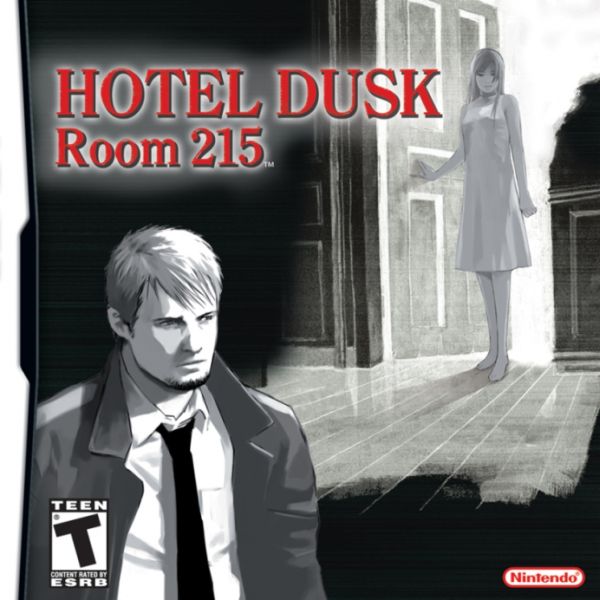
Hotel Dusk: Room 215 Font
ActionHotel Dusk: Room 215 is a visual novel puzzle adventure game developed and published by Cing for the Nintendo DS. The game was released in Japan in 2006 and in North America and Europe in 2007.
ITC Clearface, a transitional serif typeface created by Victor Caruso in 1978, is the font used for the title of the video game Hotel Dusk: Room 215. You can view more details about it here.